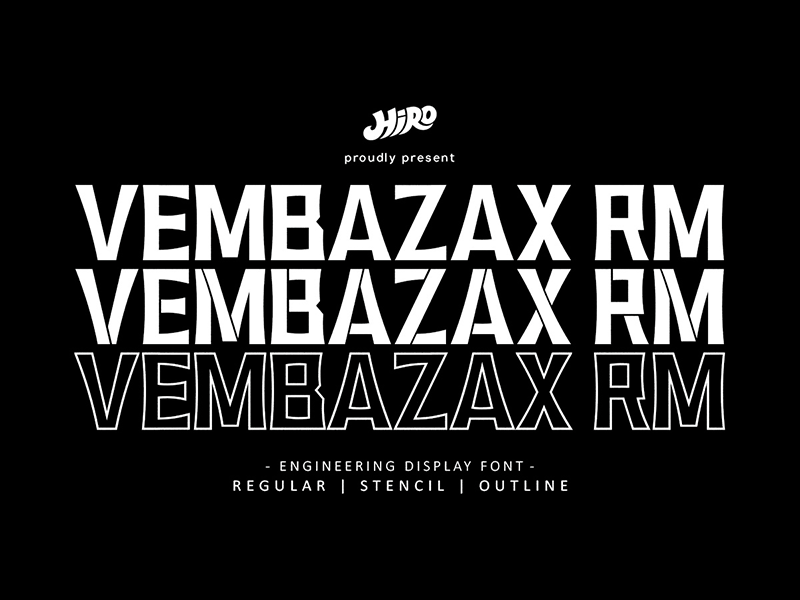
VEMBAZAX RM (Free Display Font
VEMBAZAX RM is a Display font.
This font describes about strong, taft, manly, hard, power, masculine, stiff, mighty, brave, gallant, rigid.
USE VEMBAZAX RM works great in any branding, logotype, magazines, poster, social media posts, clothing, advertisements, product packaging, product designs, label, company profile, quotes and any projects that need STRONG taste.